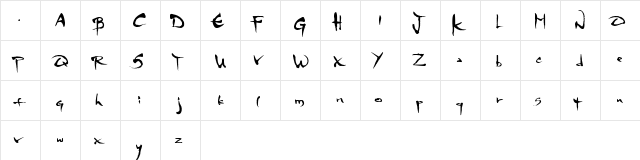
mgs4brush Regular
| Designer | Steve Snape (TheBurntBreadMan) |
Design Context for mgs4brush Typeface
mgs4brush flows with the natural rhythm of handwritten lettering, making it ideal for designs that call for warmth and personal expression.
Font Pairing: Combine mgs4brush with a simple geometric sans for maximum contrast — the tension between flowing curves and clean structure is a classic typographic pairing.
Pro Tip: Use mgs4brush for short runs of text — names, titles, or taglines. Extended body copy in script faces tires the eye quickly.